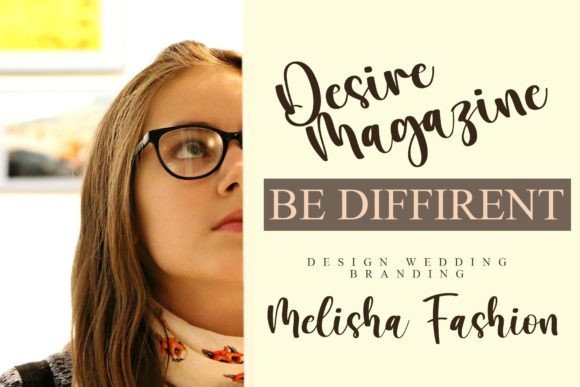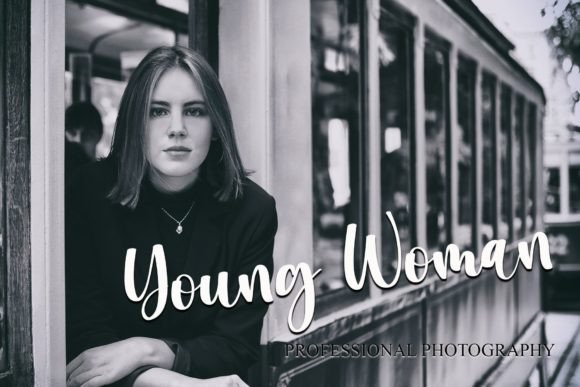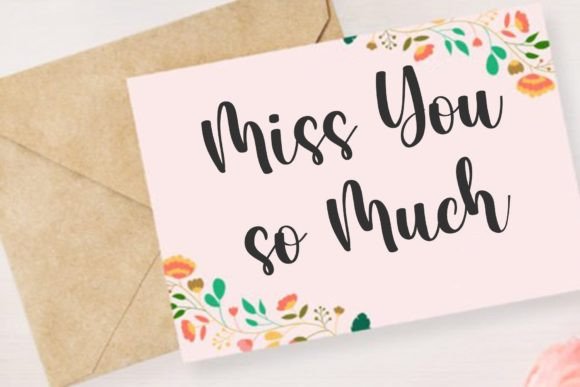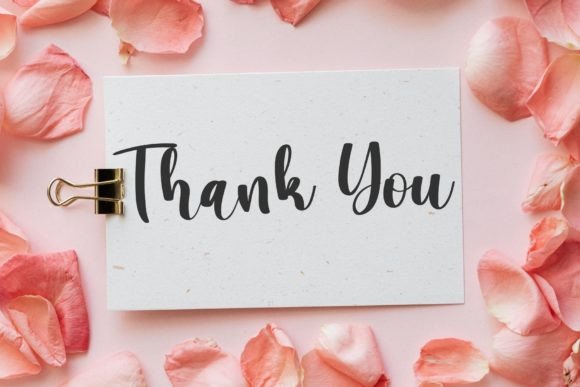
Baby Font: The Friendly Handwritten Font for Modern Designs
Baby Font is a charming, handwritten typeface that has captured the hearts of designers and crafters alike. With its classy calligraphic influences and contemporary feel, it’s no wonder why Baby Font has become a true favorite among creative enthusiasts. In this article, we’ll dive into the world of Baby Font, exploring its features, benefits, and uses, as well as provide tips and inspiration for incorporating it into your designs.
The Story Behind Baby Font
Baby Font was carefully crafted to bring a touch of elegance and sophistication to modern designs. Its friendly, approachable feel makes it perfect for a wide range of projects, from wedding invitations and baby shower announcements to branding and packaging. The font’s creator aimed to strike a balance between classic calligraphy and contemporary style, resulting in a unique and versatile typeface that’s both timeless and trendy.
Key Features of Baby Font
- Handwritten style: Baby Font boasts a beautiful, handwritten aesthetic that’s perfect for adding a personal touch to your designs.
- Classy calligraphic influences: The font’s calligraphic roots give it a sophisticated, elegant feel that’s ideal for high-end designs.
- Contemporary and fresh: Baby Font’s modern twist ensures it stays relevant and stylish in today’s fast-paced design landscape.
- Versatile: This font is suitable for a wide range of projects, from digital designs to print materials.
Benefits of Using Baby Font
So, why should you choose Baby Font for your next project? Here are just a few benefits of using this lovely font:
- Emotional connection: Baby Font’s friendly, approachable feel helps create an instant emotional connection with your audience.
- Unique style: The font’s distinctive handwritten style sets it apart from more traditional typefaces, ensuring your designs stand out.
- Easily readable: Despite its elegant feel, Baby Font remains highly legible, making it perfect for body text and headings.
- Customizable: Feel free to experiment with different colors, sizes, and styles to make Baby Font your own.
Using Baby Font in Your Designs
Now that we’ve covered the basics, let’s explore some creative ways to use Baby Font in your designs:
- Wedding and event invitations: Baby Font’s elegant feel makes it perfect for formal events, such as weddings, baby showers, and anniversaries.
- Branding and packaging: Add a touch of personality to your brand with Baby Font, ideal for product labels, business cards, and letterheads.
- Digital designs: Use Baby Font in social media graphics, blog headers, and email newsletters to add a friendly, approachable feel.
- Crafting and DIY projects: Baby Font is a great addition to handmade crafts, such as scrapbooking, card-making, and journaling.
Tips and Tricks for Working with Baby Font
To get the most out of Baby Font, keep the following tips in mind:
- Pair with complementary fonts: Combine Baby Font with clean, modern fonts for a striking contrast.
- Experiment with colors: Try out different colors and textures to give Baby Font a unique twist.
- Pay attention to spacing: Adjust the font’s spacing to ensure optimal readability.
- Have fun: Don’t be afraid to try new things and make Baby Font your own!
Baby Font is a beautiful, versatile typeface that’s sure to capture your heart. With its classy calligraphic influences, friendly feel, and contemporary style, it’s the perfect addition to any design project. Whether you’re a seasoned designer or a crafty DIY enthusiast, Baby Font is an excellent choice for adding a touch of elegance and personality to your work. So why not give it a try and see the magic for yourself?